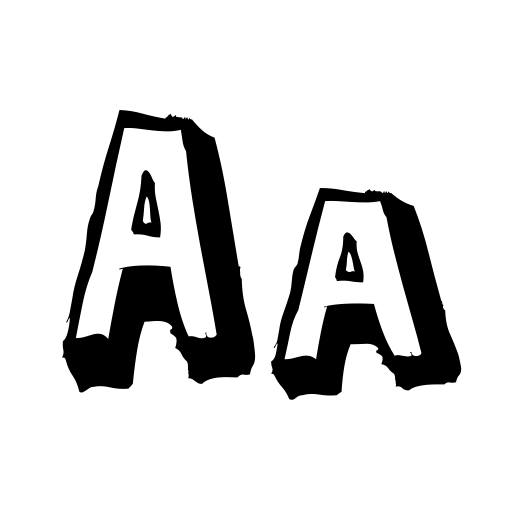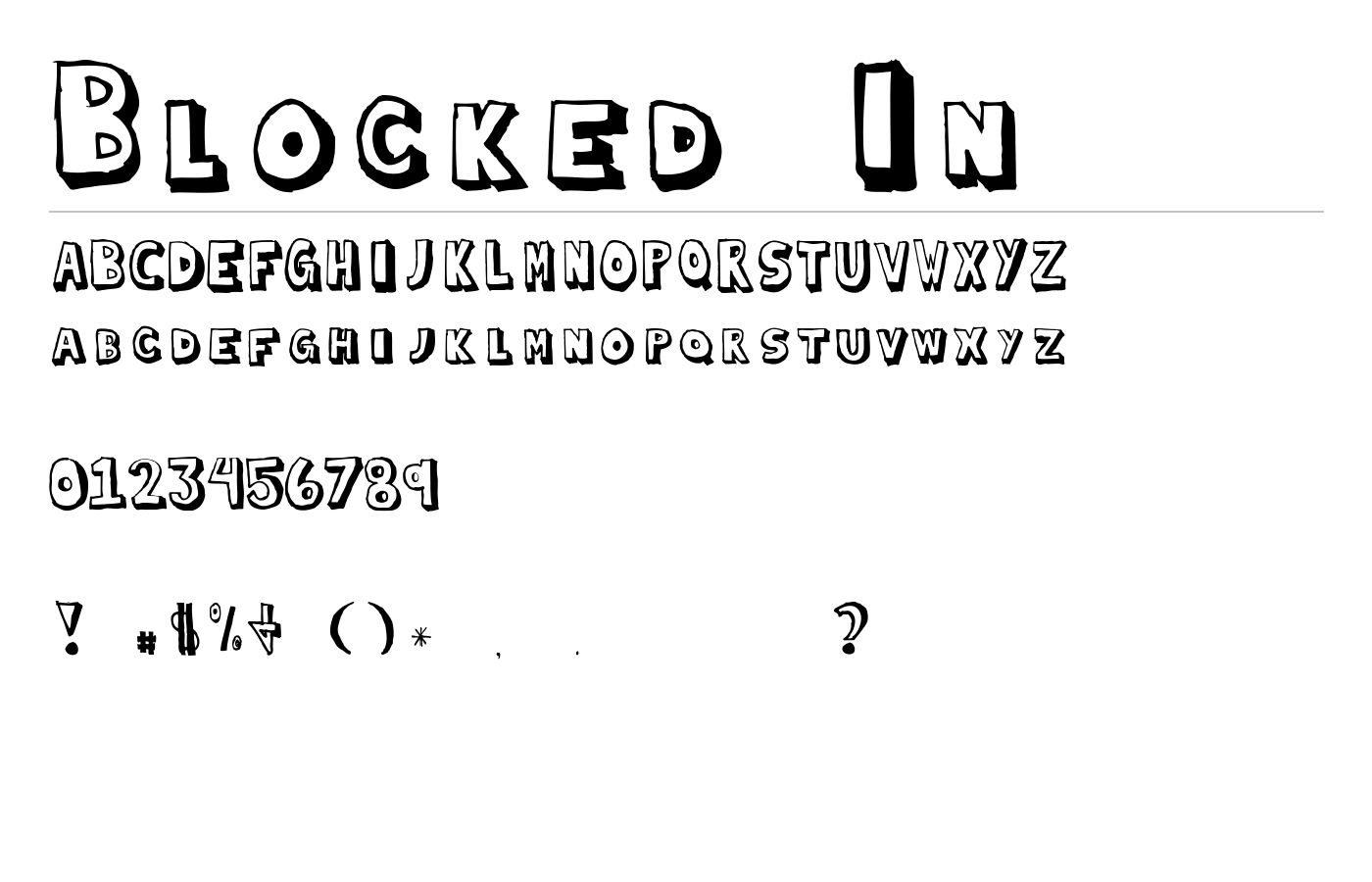
Blocked In is a bold, playful sans serif font with a hand-drawn, blocky style that features irregular, slightly rough edges and shadows giving a 3D effect. Its quirky, casual character makes it ideal for fun, eye-catching headlines, posters, and creative branding that wants to convey a lively and approachable vibe. This font stands out where bold personality and a touch of whimsy are needed.
Blocked In Font
About Blocked In Font
| Font family | Blocked In Font |